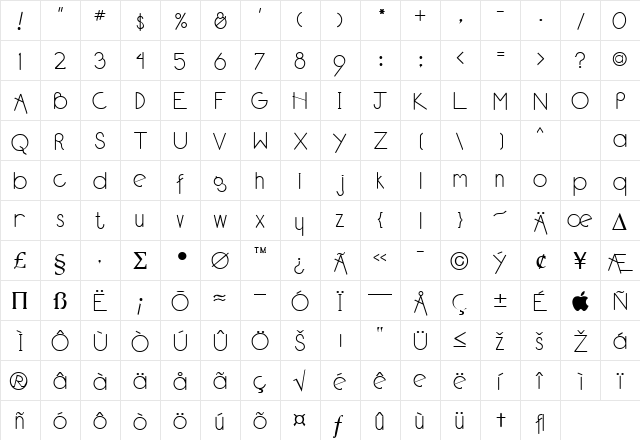
NeuSansLight Regular
Design Context for NeuSansLight Typeface
NeuSansLight offers clean, dependable letterforms without strong stylistic allegiance, making it a practical choice for designers who need flexibility. The delicate stroke weight brings airiness and refinement to layouts.
Pro Tip: Use NeuSansLight in both headline and body roles to test its range before committing to a single application.